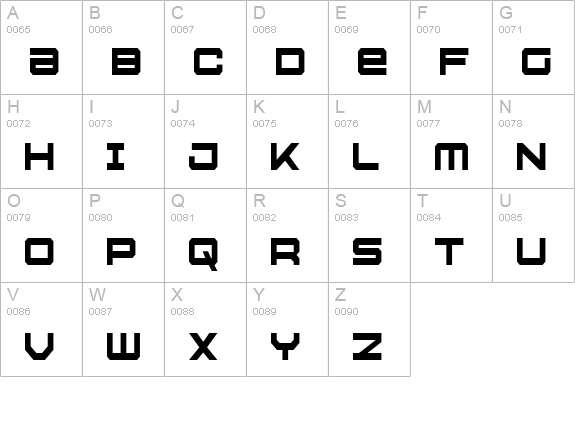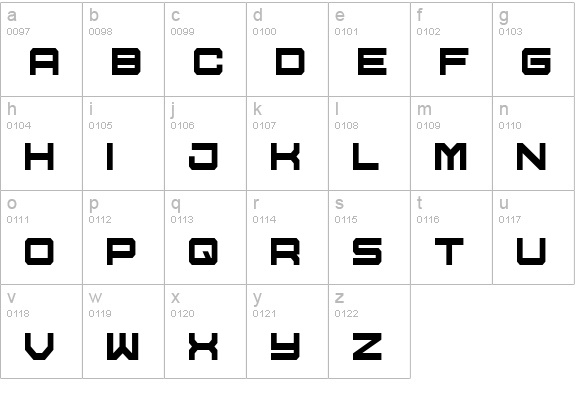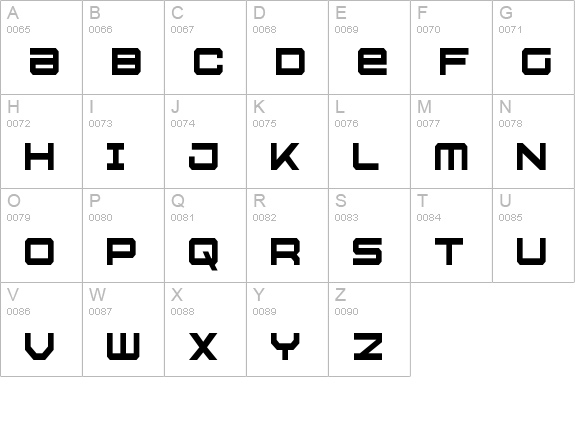
U.S.S. Dallas Condensed is a distinctive, condensed-width variant in the U.S.S. typeface family \xE2\x80\x94 well suited to design and typography projects.
U.S.S. Dallas Condensed font is a sleek and modern typeface that exudes sophistication and elegance. With its condensed style, this font is perfect for creating a bold and impactful design statement. The sharp lines and clean curves of U.S.S. Dallas Condensed make it a versatile choice for a wide range of projects, from branding to editorial design. What sets U.S.S. Dallas Condensed font apart is not only its striking aesthetic appeal but also its accessibility. This high-quality font is available for free download at FontsMarket.com, making it a valuable addition to any designer's toolkit without any cost. Whether you are working on a print project or a digital design, U.S.S. Dallas Condensed font will elevate your work with its contemporary and stylish vibe. Don't miss out on the opportunity to enhance your designs with U.S.S. Dallas Condensed font – download it for free today at FontsMarket.com and take your projects to the next level!